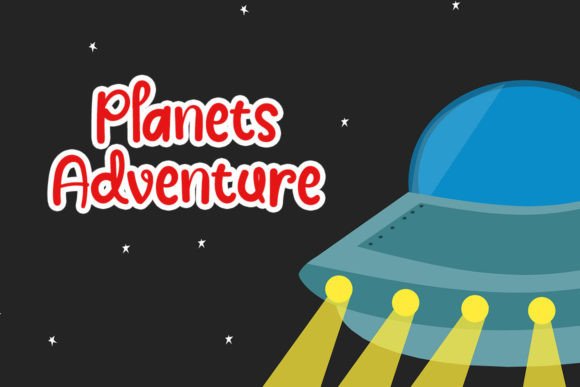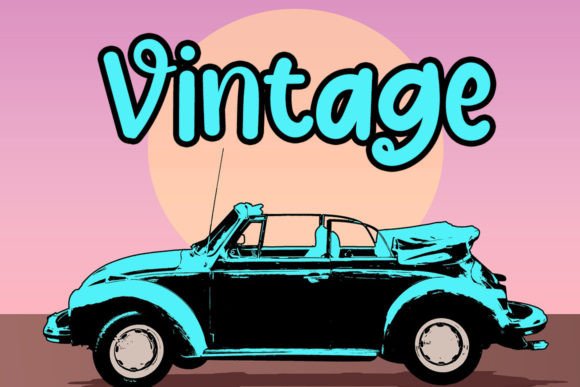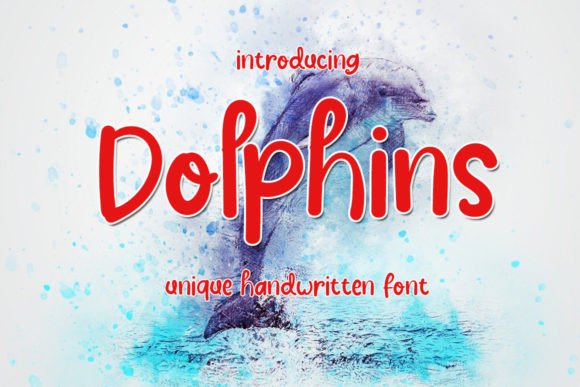
Dolphins Font: A Fresh, Clean, and Elegant Typographic Delight
Are you on the hunt for a font that embodies the essence of freshness, cleanliness, and elegance? Look no further than the Dolphins Font. This beautiful and sweet font is perfect for a wide range of creative projects, from invitations and cards to social media graphics, bags, clothing, web design, flyers, and more. In this article, we’ll dive into the world of Dolphins Font, exploring its features, uses, and benefits for designers and crafters alike.
What is Dolphins Font?
Dolphins Font is a carefully crafted typeface that exudes a sense of serenity and sophistication. Its clean lines, elegant curves, and balanced proportions make it an ideal choice for designers seeking a font that can convey a sense of refinement and poise. Whether you’re working on a personal project or a client’s commission, Dolphins Font is sure to impress with its fresh and modern aesthetic.
Key Features of Dolphins Font
- Fresh and Clean Design: Dolphins Font boasts a crisp, clean design that’s perfect for creating visually appealing graphics, whether digital or print.
- Elegant and Sophisticated: The font’s elegant curves and refined lines give it a sophisticated feel that’s ideal for high-end branding, luxury packaging, and more.
- Highly Versatile: Dolphins Font can be used on a wide range of projects, from invitations and cards to social media graphics, web design, and beyond.
- User-Friendly: The font is easy to read and works well in various sizes, making it perfect for both digital and print applications.
Uses for Dolphins Font
With its versatility and aesthetic appeal, Dolphins Font is suitable for a variety of creative projects, including:
- Invitations and Cards: Create beautiful wedding invitations, birthday cards, and more with Dolphins Font.
- Social Media Graphics: Use the font to create engaging social media graphics, such as quotes, promotions, and announcements.
- Bags and Clothing: Add a touch of elegance to your fashion designs with Dolphins Font, perfect for labels, tags, and branding.
- Web Design: Enhance your website’s typography with Dolphins Font, ideal for headings, titles, and body text.
- Flyers and Brochures: Create eye-catching marketing materials with Dolphins Font, perfect for promoting events, products, or services.
Dolphins Font offers several benefits for designers and crafters, including:
- Time-Saving: With Dolphins Font, you can quickly create professional-looking graphics without spending hours on typography.
- Consistency: The font’s clean and elegant design ensures consistency across your brand or project’s visual identity.
- Customization: Dolphins Font can be easily customized to fit your project’s specific needs, from color schemes to font sizes.
- Inspiration: The font’s unique design can spark creativity and inspire new ideas for your projects.
In conclusion, Dolphins Font is a beautiful and sweet font that’s perfect for designers and crafters seeking a fresh, clean, and elegant typographic solution. Its versatility, aesthetic appeal, and user-friendly design make it an excellent choice for a wide range of creative projects. Whether you’re working on a personal project or a client’s commission, Dolphins Font is sure to impress with its sophisticated and refined look.